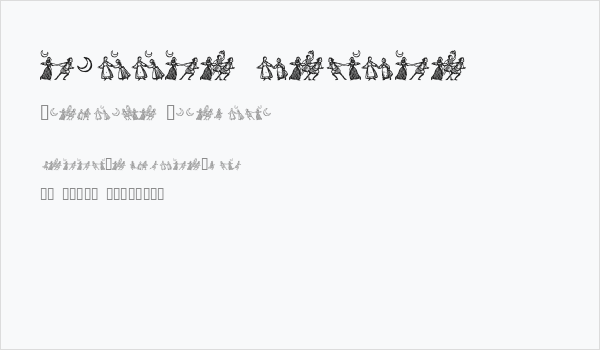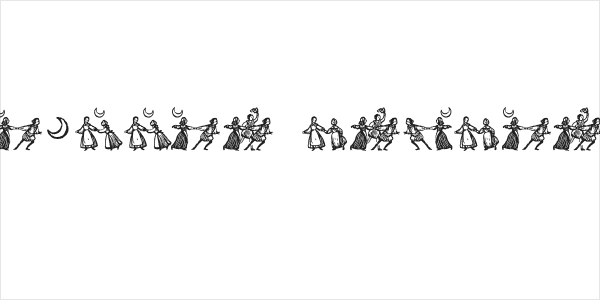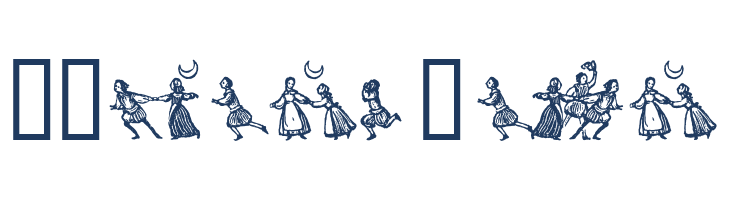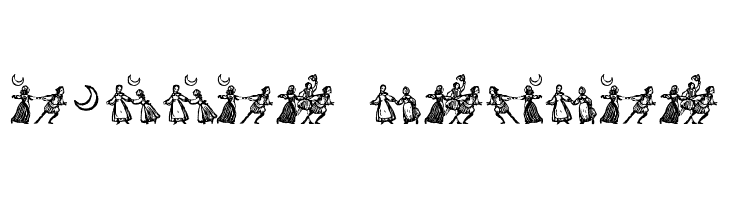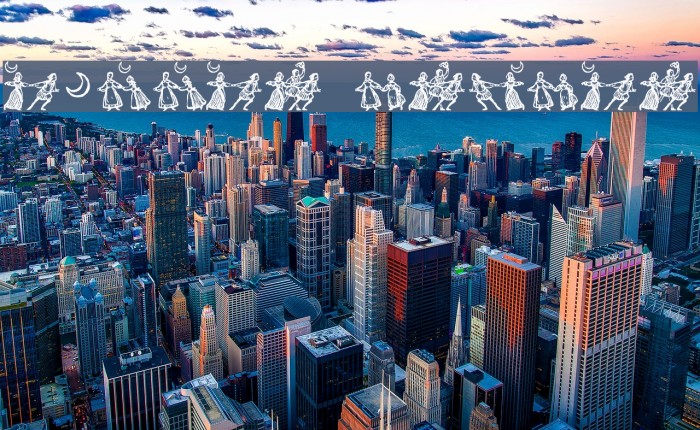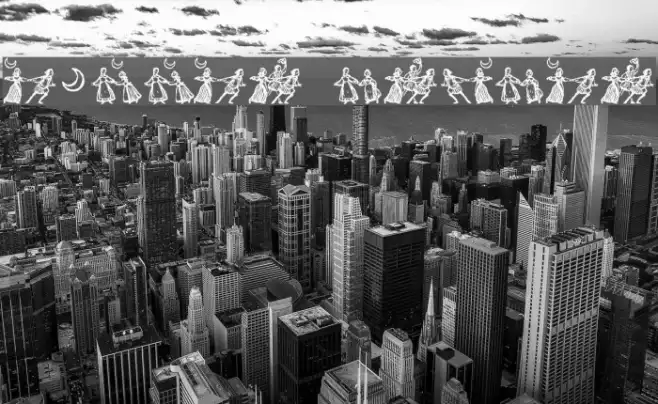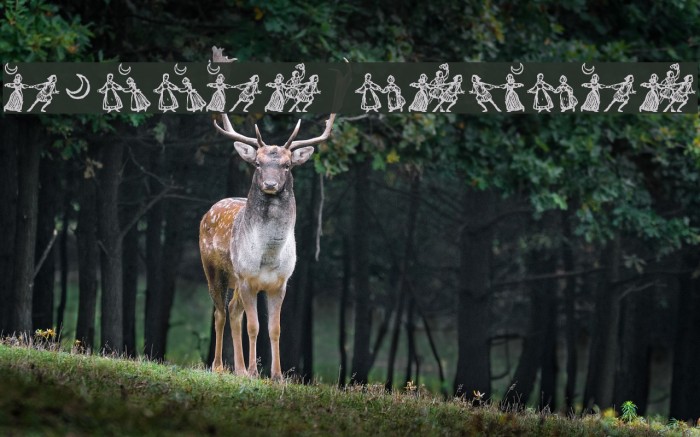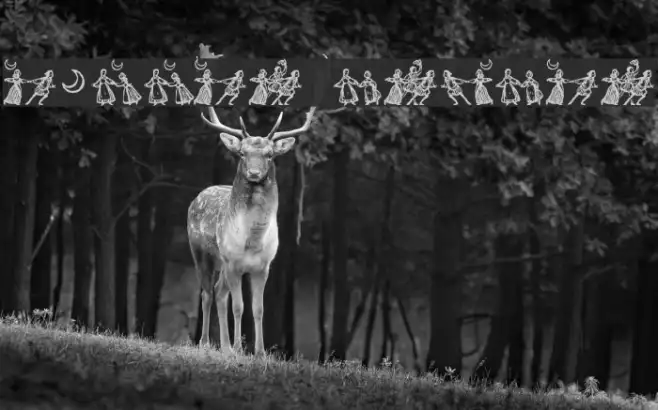
little people Font
little people Description
This font is a whimsical and decorative set featuring playful illustrations of little people engaged in various activities. Each character is represented by a unique scene, adding a narrative and artistic flair to the text. The style is reminiscent of vintage storybook illustrations, with intricate details and a charming, hand-drawn quality. The characters are evenly spaced, maintaining a consistent alignment that ensures readability despite the decorative nature. This font is ideal for projects that require a touch of nostalgia and creativity, such as children's books, greeting cards, or themed event materials.
| Overall Style | Vintage, Decorative |
| Use Case | Artistic projects, Decorative headings, Themed designs |
| Proposed Projects | Children's books, greeting cards, themed event materials, artistic posters. |